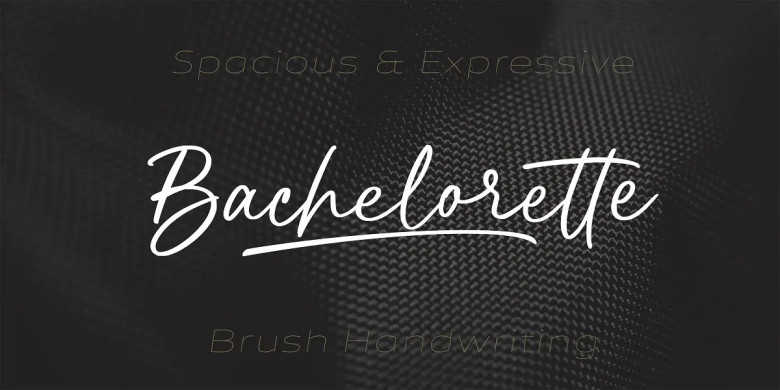
Bachelorette Font
Bachelorette is a charming handwriting script font with delicate feminine charm. Its smooth curves and friendly strokes make it seem natural and real, as if written with a brush or pen. versatile and suitable for anything from greeting cards and invitations in wedding season to social platform posts or logos-something that can add a little warmth or touch of personality to your project Bachelorette This pretty and pure font is perfect for projects that require simplicity and quiet grace.
Let Bachelorette soften and transform your work into something both romantic and amusing, with its delicate flowing letters that look like they were forgotten or just add on the ends of words after being written in a flash.
Bachelorette Handwritten Script Font